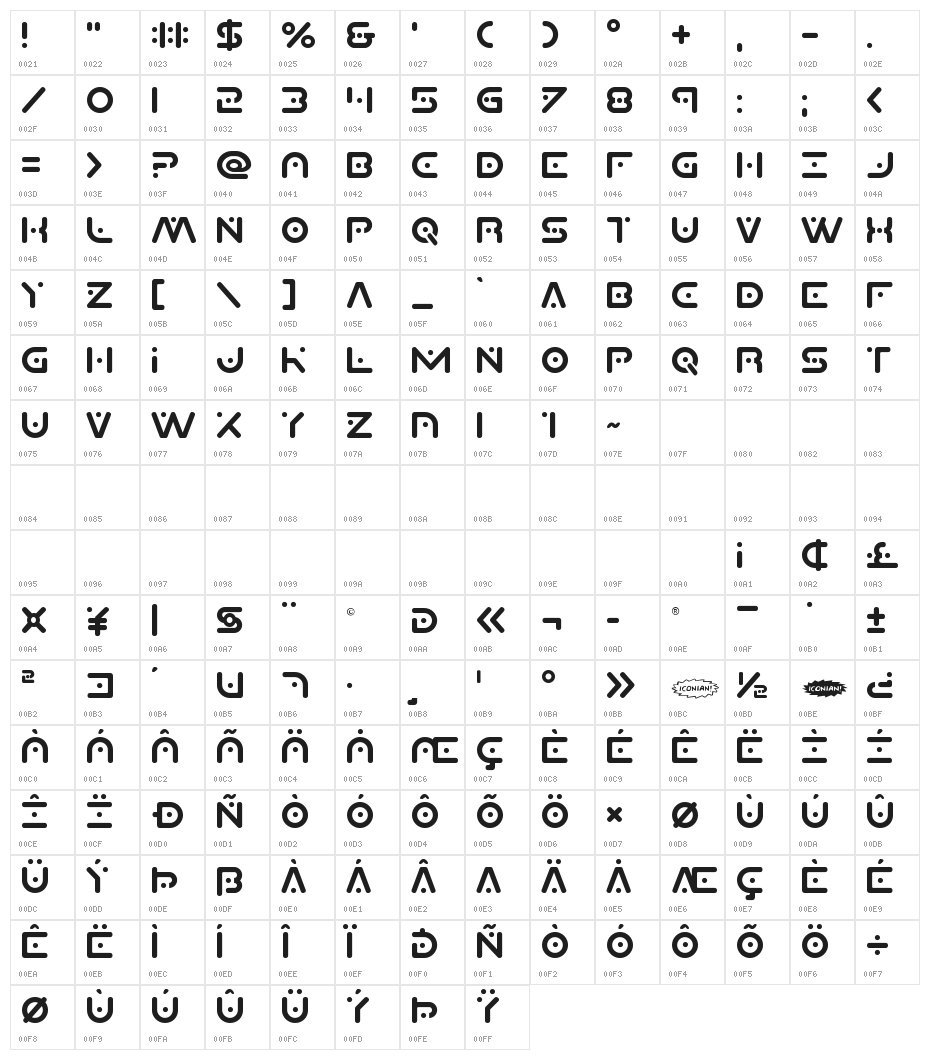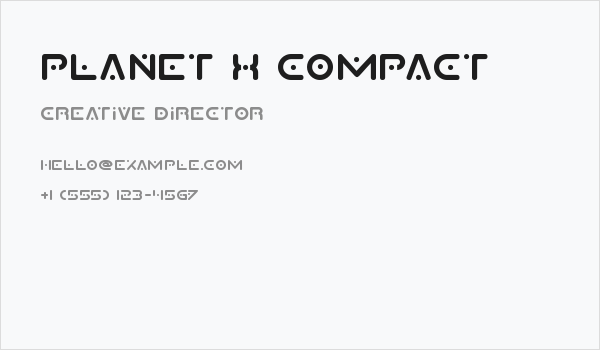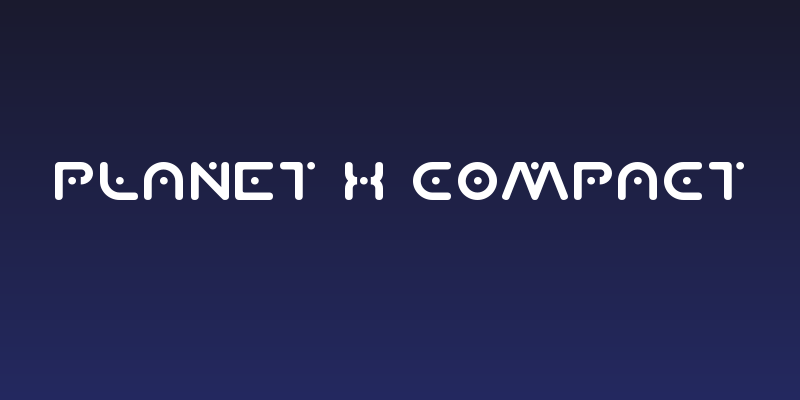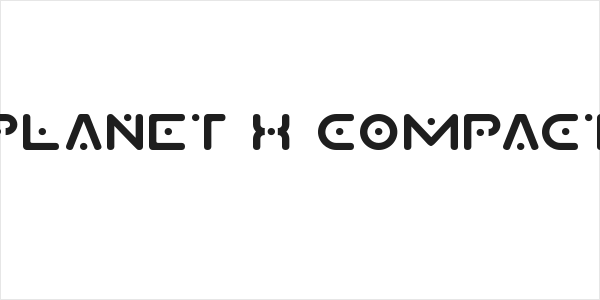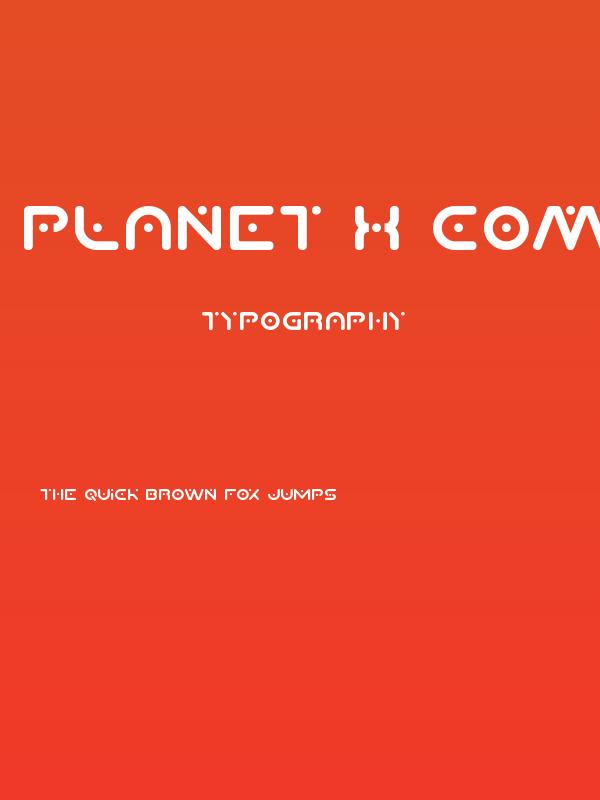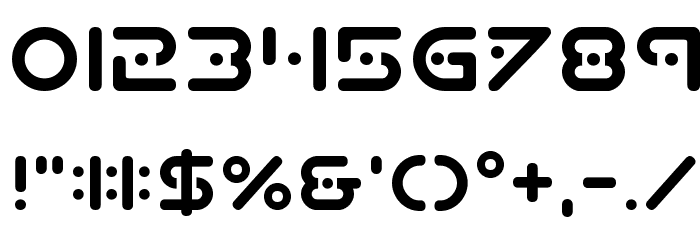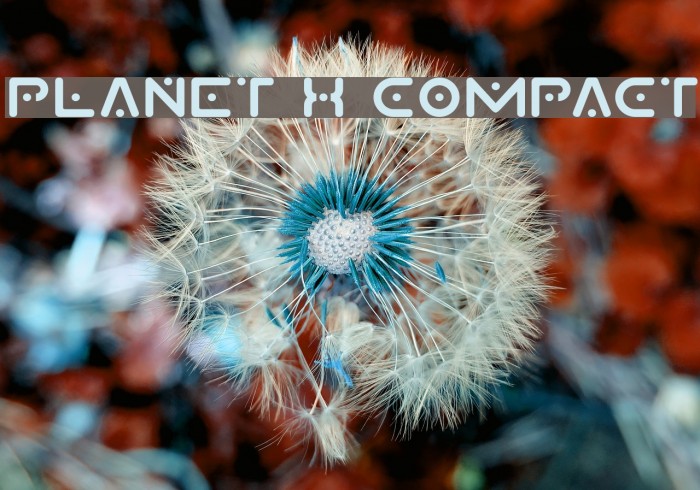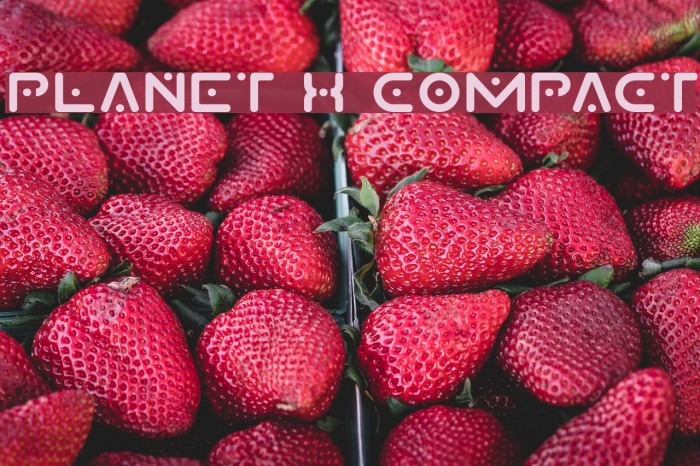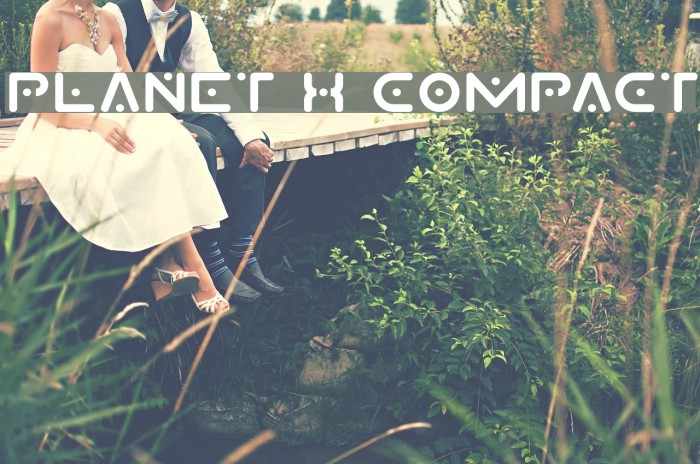
Planet X Compact Font
Planet X Compact Description
This font features a futuristic and geometric design, characterized by its bold and rounded letterforms. Each character is crafted with a unique blend of curves and straight lines, creating a sense of modernity and innovation. The use of dots and breaks within the strokes adds an element of intrigue and complexity, making it stand out in any design. The font maintains a consistent weight throughout, ensuring readability while still offering a distinct visual appeal. Its style is reminiscent of digital and sci-fi themes, making it ideal for projects that require a contemporary and cutting-edge aesthetic.
| Proposed Projects | Ideal for sci-fi themed posters, tech branding, video game titles, and digital interfaces. |